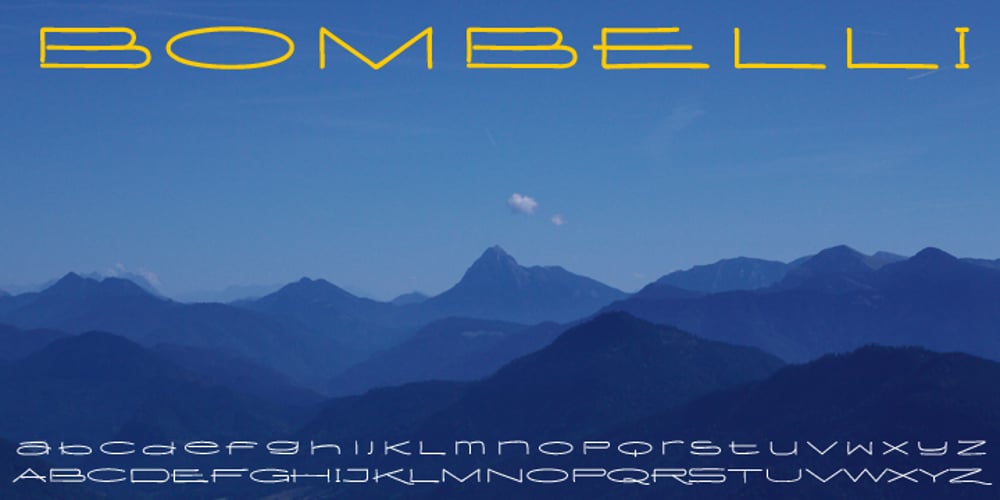
Bombelli Light Hand
Bombelli Light Hand font
Bombelli Light Hand Font Family was designed by Gert Wiescher and published by Wiescher Design. Bombelli Light Hand contains 1 styles and family package options. Bombelli is a font that looks like it has been handwritten by a meticulous architect in one of those hand-drawn blueprints of the old days. I chose the name to honor one of my ex-bosses — a graphic designer-architect who taught me a lot of things when I was young and needed the money. One of the things he taught me – and probably the most important one – was to always be on time in the morning. He never said a word about me being late, but it worked. He taught me about being meticulous in detail and many other things I only appreciated much later. This clear and straightforward font deserves bearing his name. Your grateful type designer Gert Wiescher